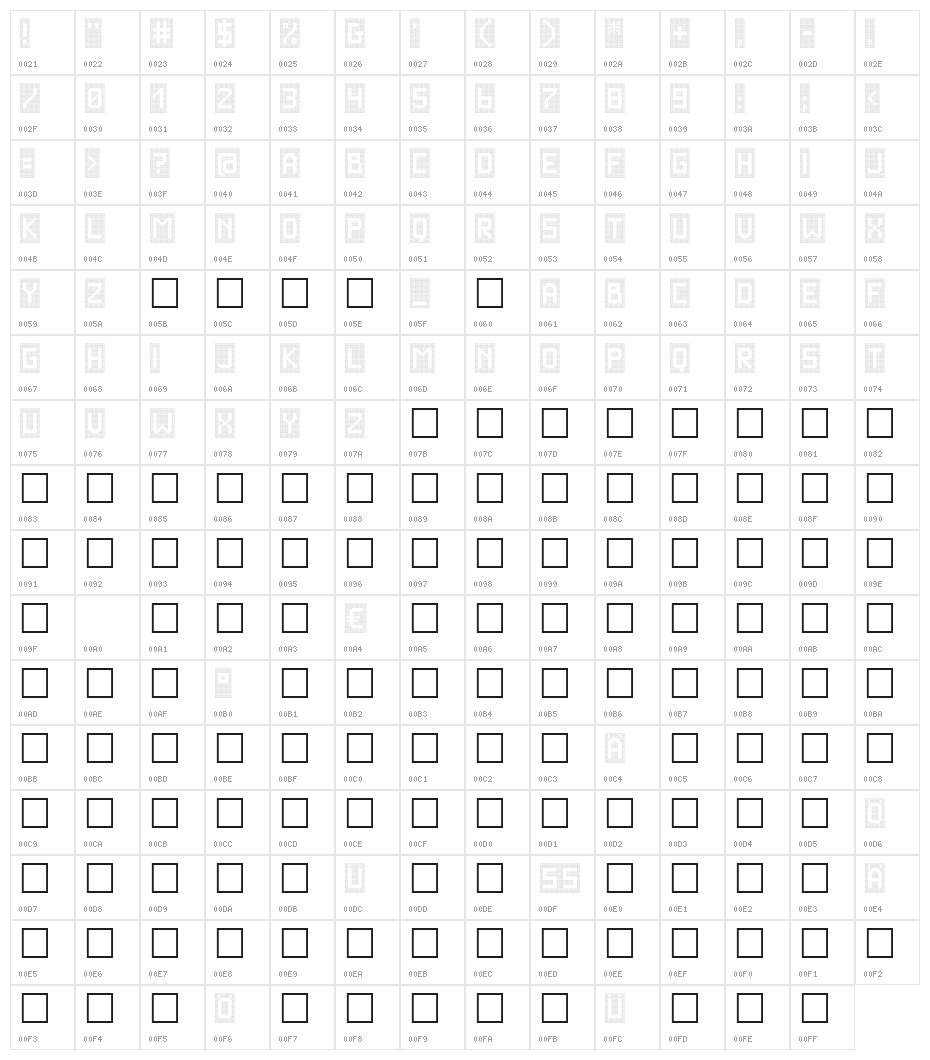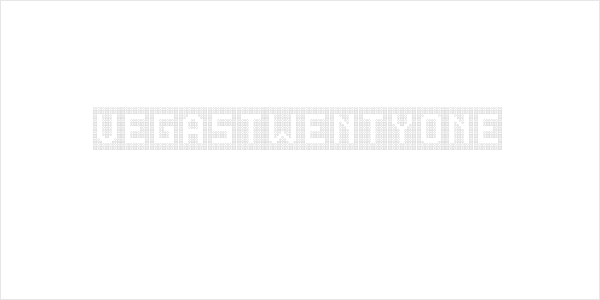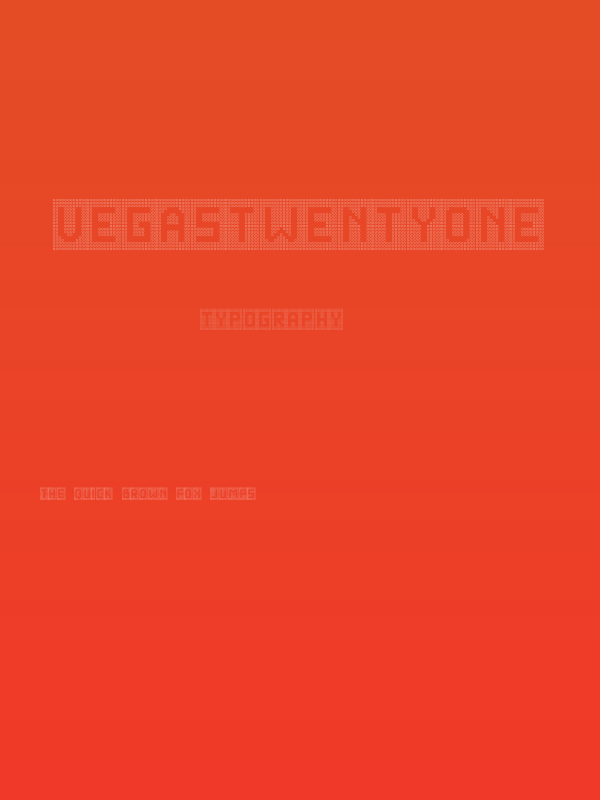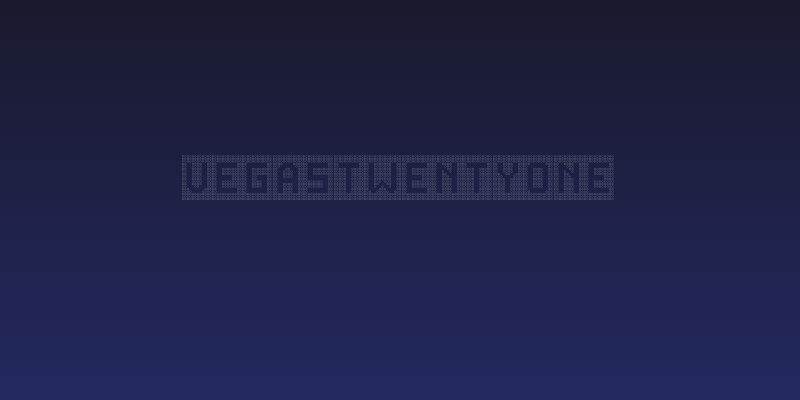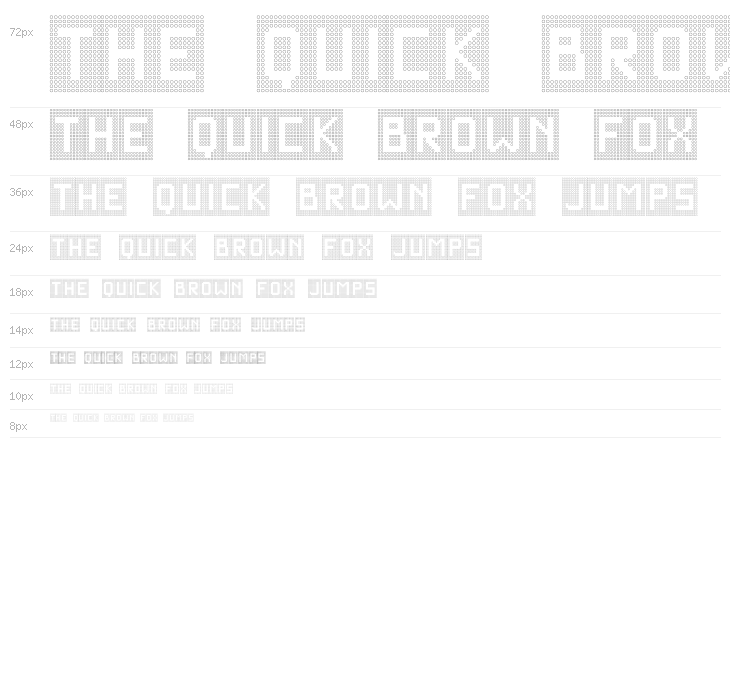
VegasTWENTYONE Font
VegasTWENTYONE Description
This font features a unique, pixelated design that mimics the appearance of digital displays or LED screens. Each character is constructed from a grid of small dots, creating a retro, tech-inspired aesthetic. The uppercase and lowercase letters maintain a consistent height, contributing to a uniform look. The numbers and special characters follow the same dot matrix style, ensuring cohesion across all elements. This font is particularly eye-catching due to its geometric precision and the way it captures the essence of vintage digital displays. Its distinctive style makes it ideal for projects that require a futuristic or retro digital theme.
| Overall Style | Retro, Futuristic |
| Use Case | Headlines, Logos, Digital Displays |
| Proposed Projects | Ideal for digital-themed designs, retro gaming graphics, tech event posters, and futuristic branding. |